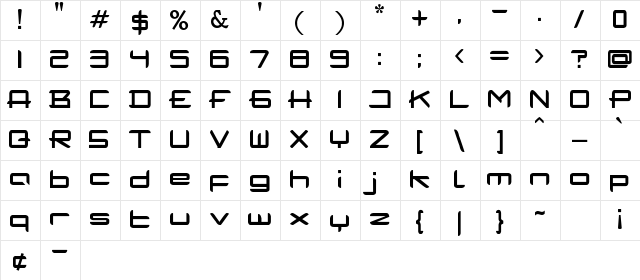
Hambalang Regular
| Designer | Arvan Fatwa |
Design Context for Hambalang Typeface
Hambalang is a composed and adaptable typeface that performs quietly and consistently across a wide range of design contexts.